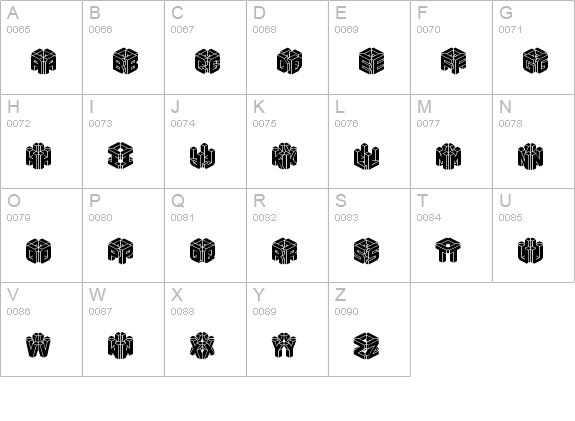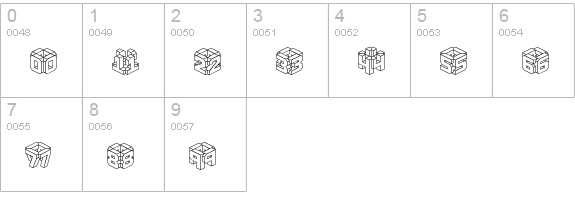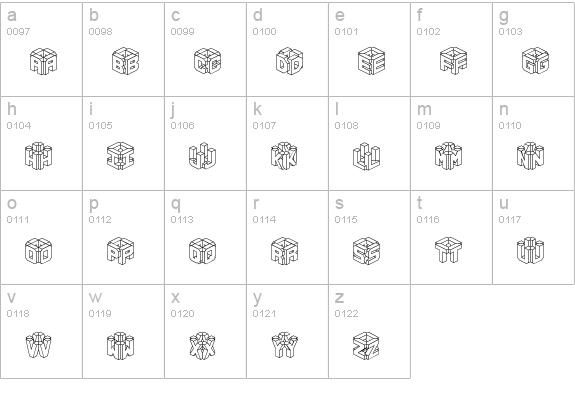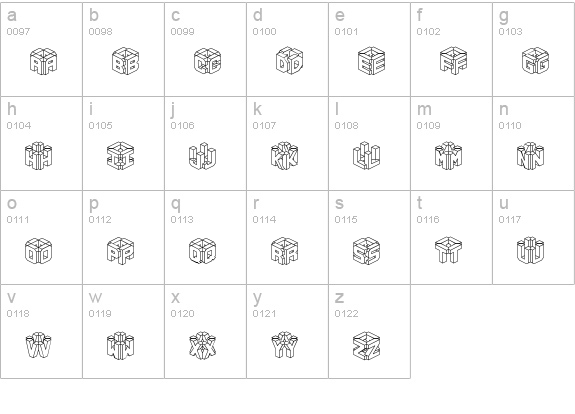
3D LET BRK Font Details
The 3D LET BRK font is a visually striking typeface that combines depth and dimension to create a bold and impactful design. With its three-dimensional appearance and unique break style, this font is sure to make a statement in any project. The sharp edges and dynamic angles of each letter give it a modern and futuristic look, perfect for adding a touch of flair to logos, headlines, and other creative designs. Best of all, the 3D LET BRK font is available for free download at FontsMarket.com. Whether you're a designer looking to add a fresh element to your work or simply seeking a unique font for personal projects, this font is a fantastic choice. Don't miss out on the opportunity to enhance your designs with this eye-catching and versatile typeface. Download the 3D LET BRK font today and unleash your creativity!